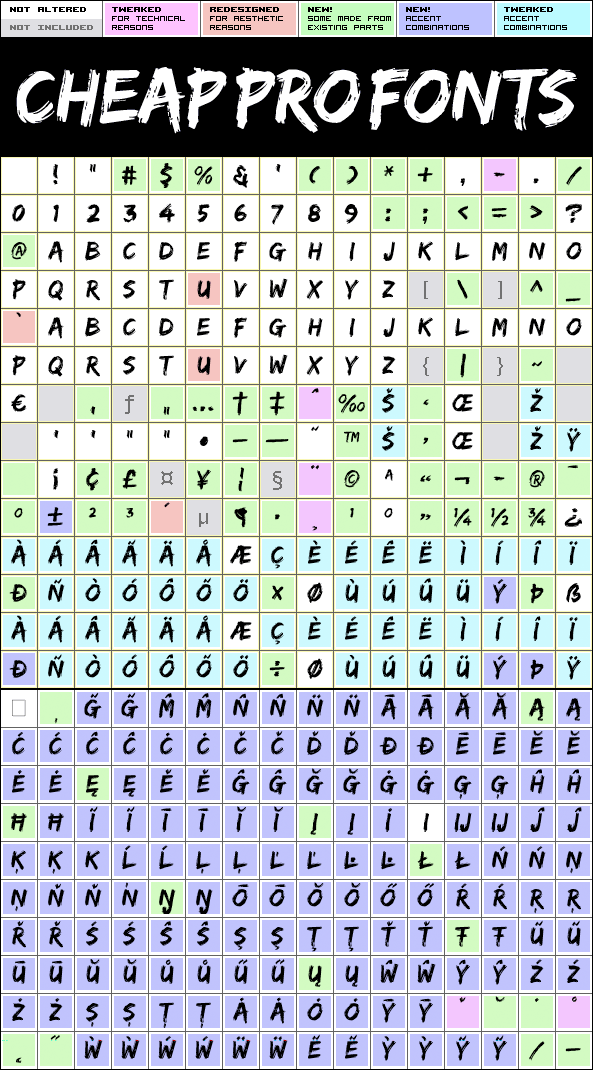
Edo Pro
Edo Pro by Vic Fieger
Vic Fieger
369 glyphs!
(152 in original)
201 class kernpairs
= 10426 kerning pairs
(none in original)
A freeflowing brush script with only uppercase letters. Now with a professional and multilingual character set!
Vic Fieger says: "The letters in Edo were hand-drawn using a thick black permanent marker with a flat head. The head was chopped up using a box cutter to create a "brush" effect. The entire font was made while watching Bobobo-bo Bo-bobo.
Edo has been used by video game-makers UbiSoft in their game adaptation of the 2007 animated film Surf's Up, as well as ads for the Fuse 2006 Warped Tour. More recently, it has turned up in such places as the cover for the US release of the manga Teru Teru x Shonen, and the logo for A&E's program The Cleaner."
Edo Pro is a professionally reworked font that contains an extended character set for setting text in 65 languages requiring more than the basic A-Z!